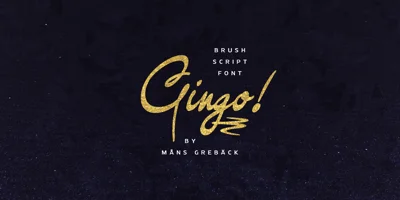
Gingo Font
Gingo Font is ideal for wellness design projects including holistic health centers, natural medicine clinics, herbal supplement brands, mindfulness meditation studios, wellness retreat centers, traditional healing practices, botanical gardens, and peaceful lifestyle campaigns. This harmonious typeface works perfectly for alternative medicine practitioners, wellness consultancies, natural health food stores, yoga therapy centers, and projects that celebrate ancient wisdom and natural healing traditions.
What makes Gingo Font exciting is its balanced wellness character that perfectly captures the essence of natural healing and holistic harmony. The font features organic letterforms with gentle curves that reflect the timeless wisdom and healing properties of traditional medicine. Its peaceful design elements embody the spirit of natural wellness and ancient knowledge, making it perfect for projects that need to convey healing, balance, and connection to natural health traditions. The carefully crafted organic proportions create an atmosphere of therapeutic tranquility and holistic well-being.
Gingo Font comes in multiple family variations including natural, healing, peaceful, and holistic styles. Each weight maintains the distinctive wellness character while offering different levels of therapeutic intensity and healing presence. The font family includes natural alternates, healing ligatures, and wellness variations that provide designers with comprehensive options for creating truly therapeutic and authentically natural typographic compositions that celebrate holistic health.